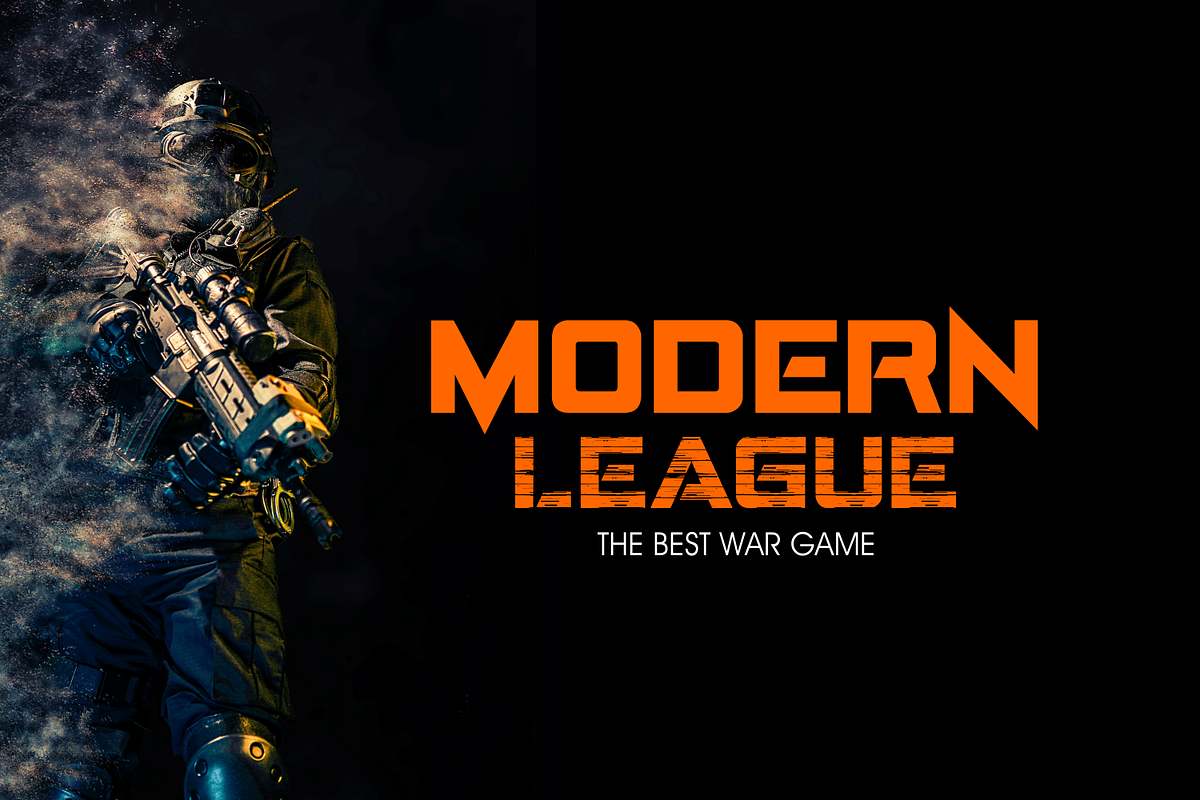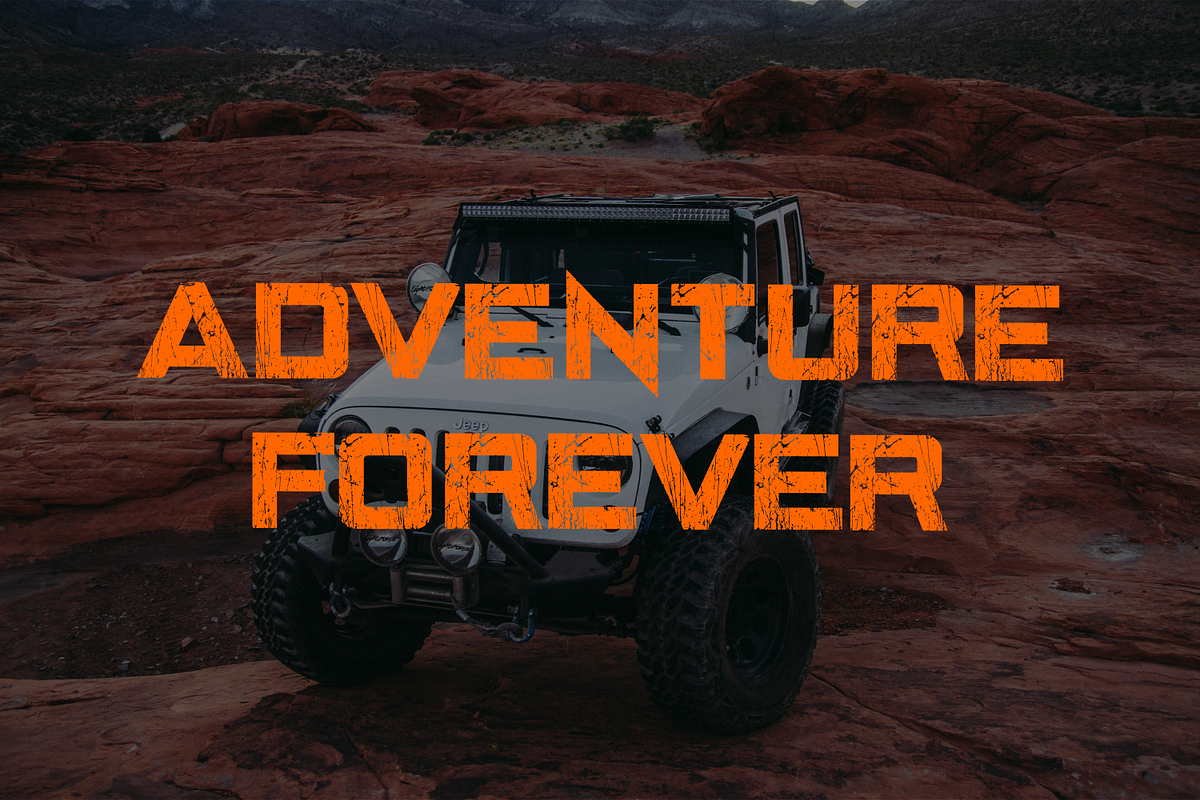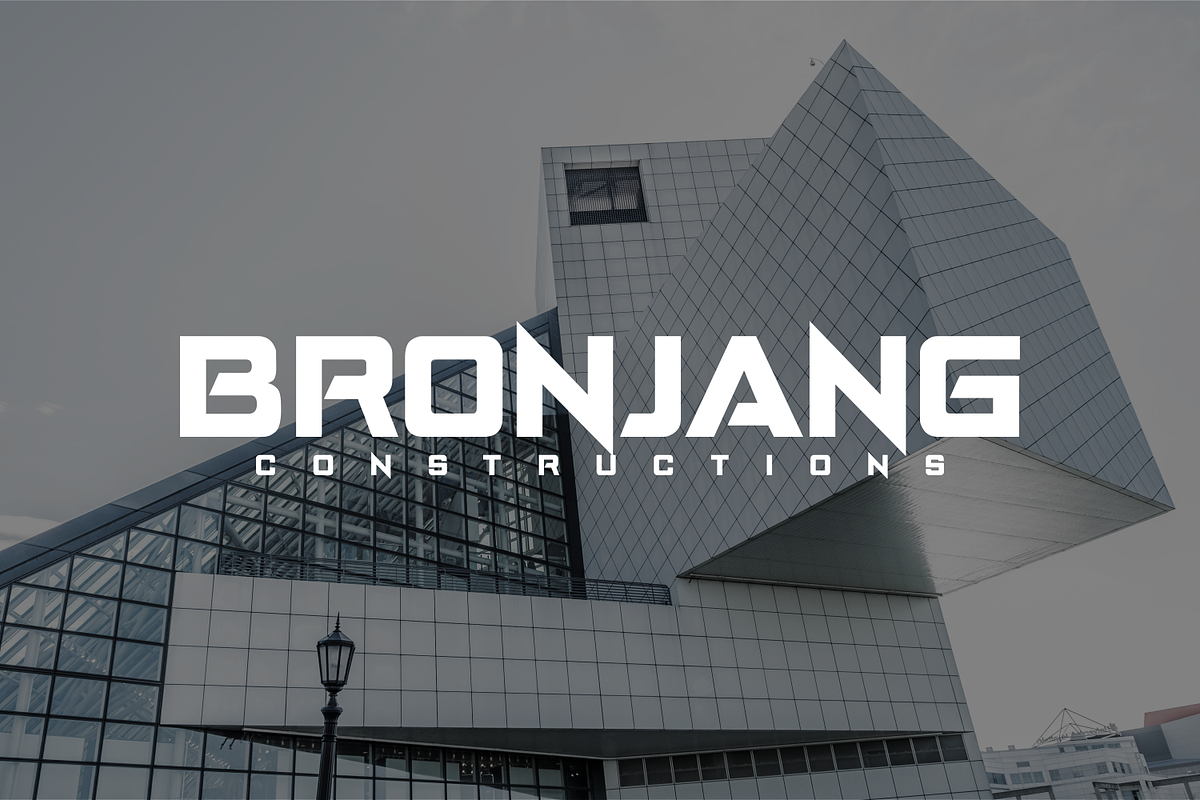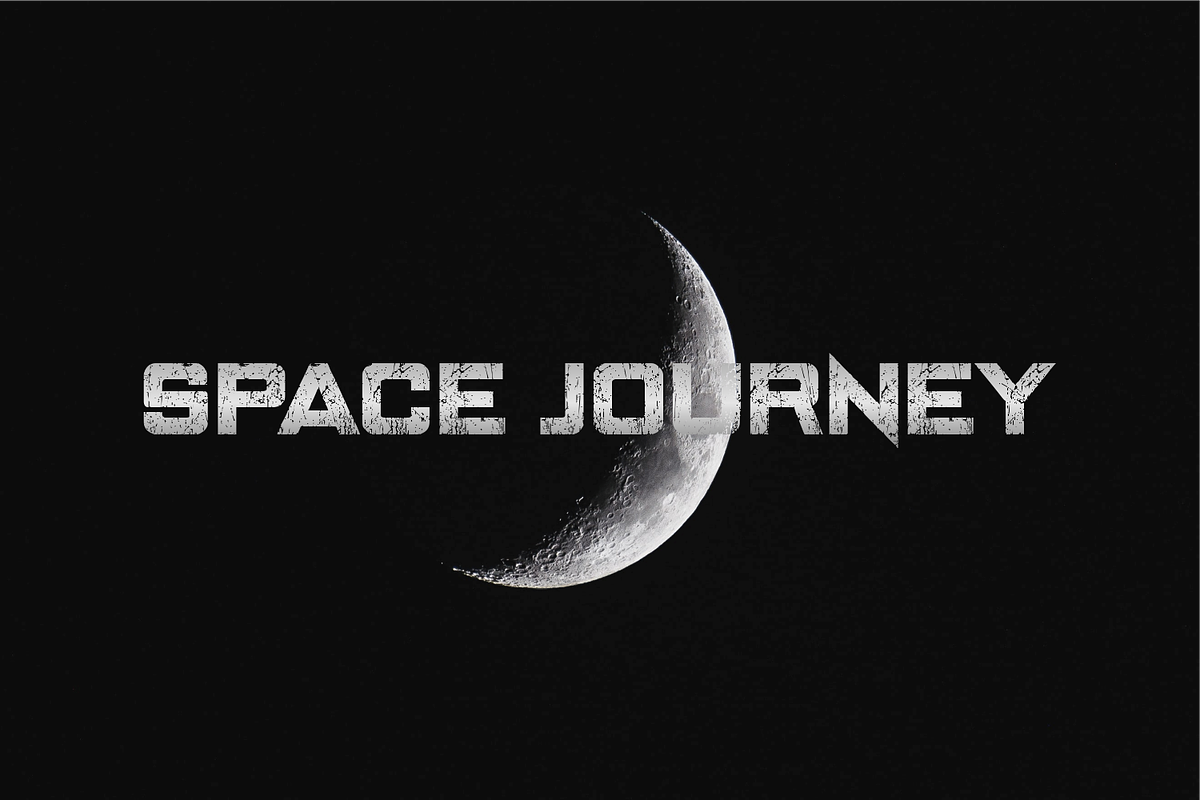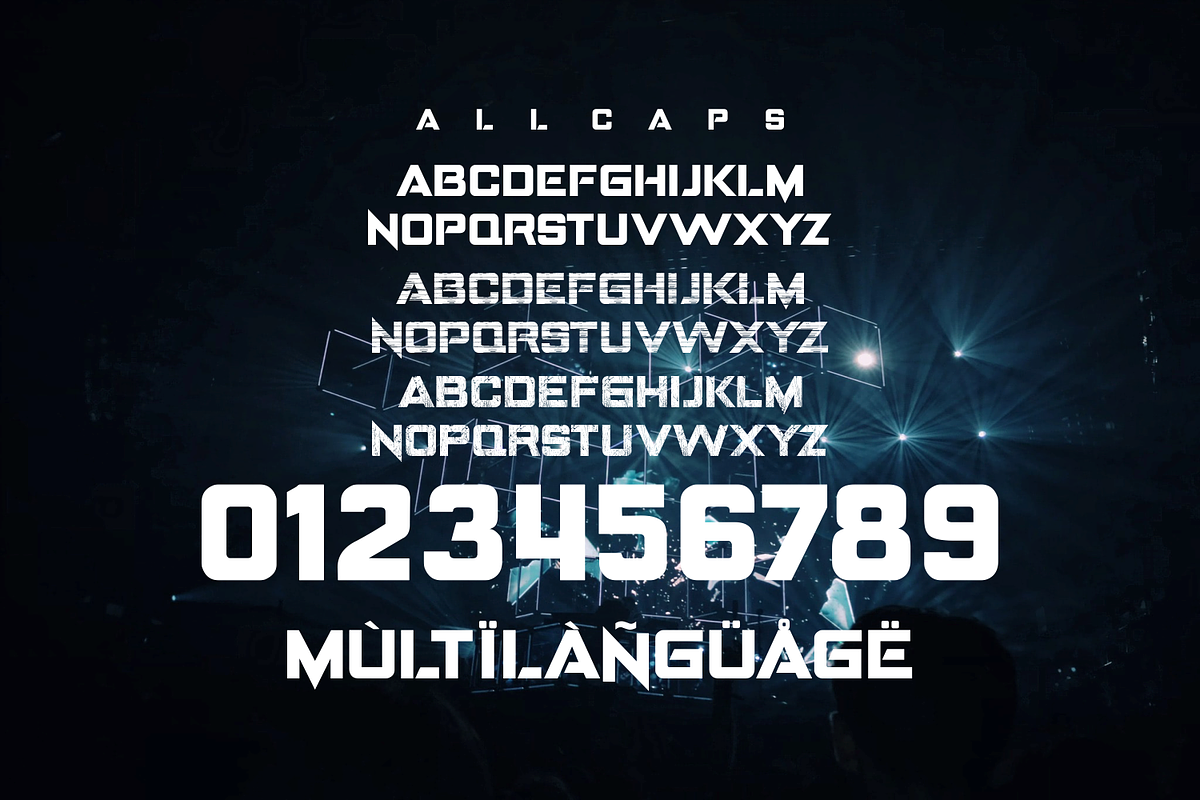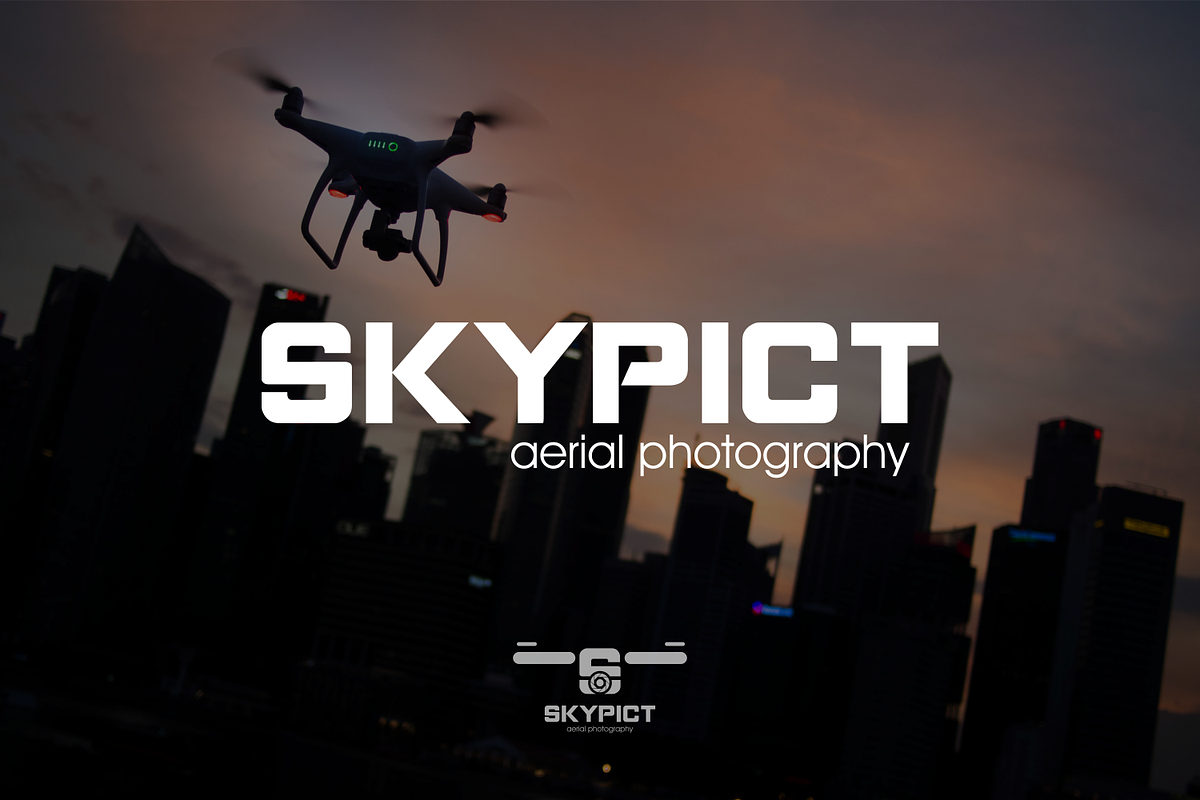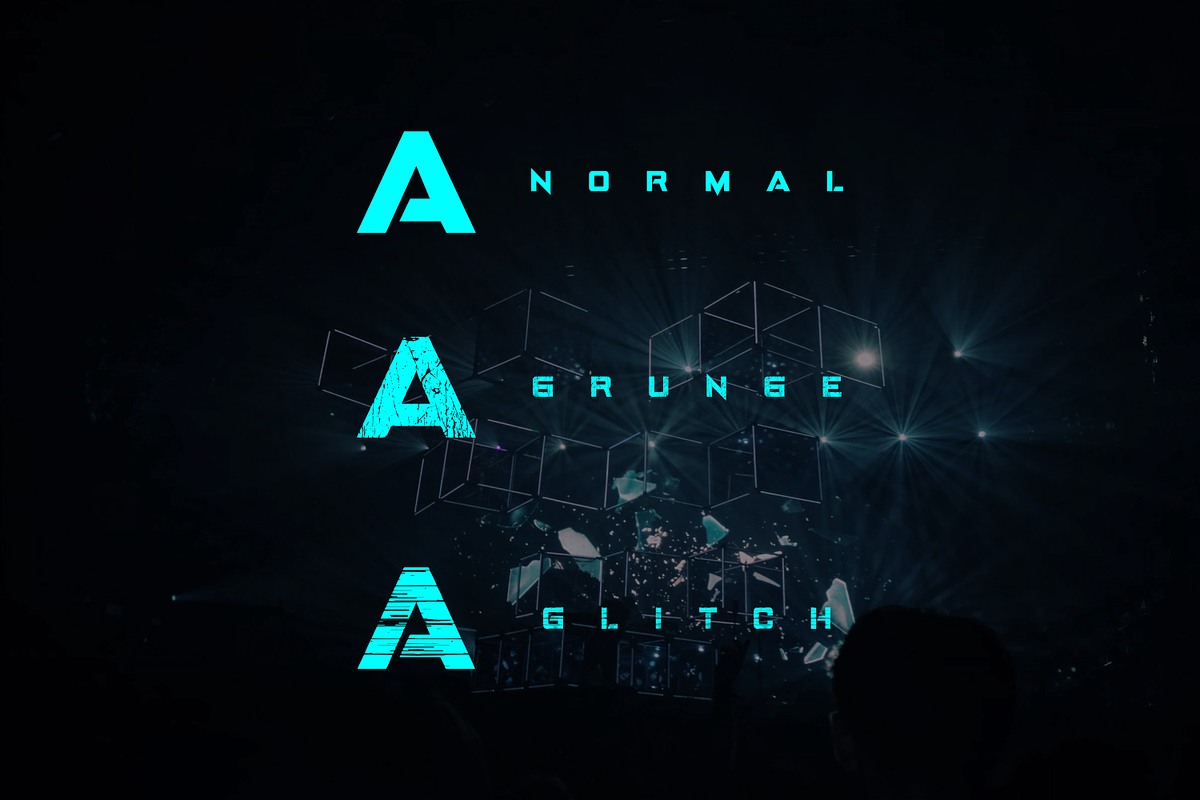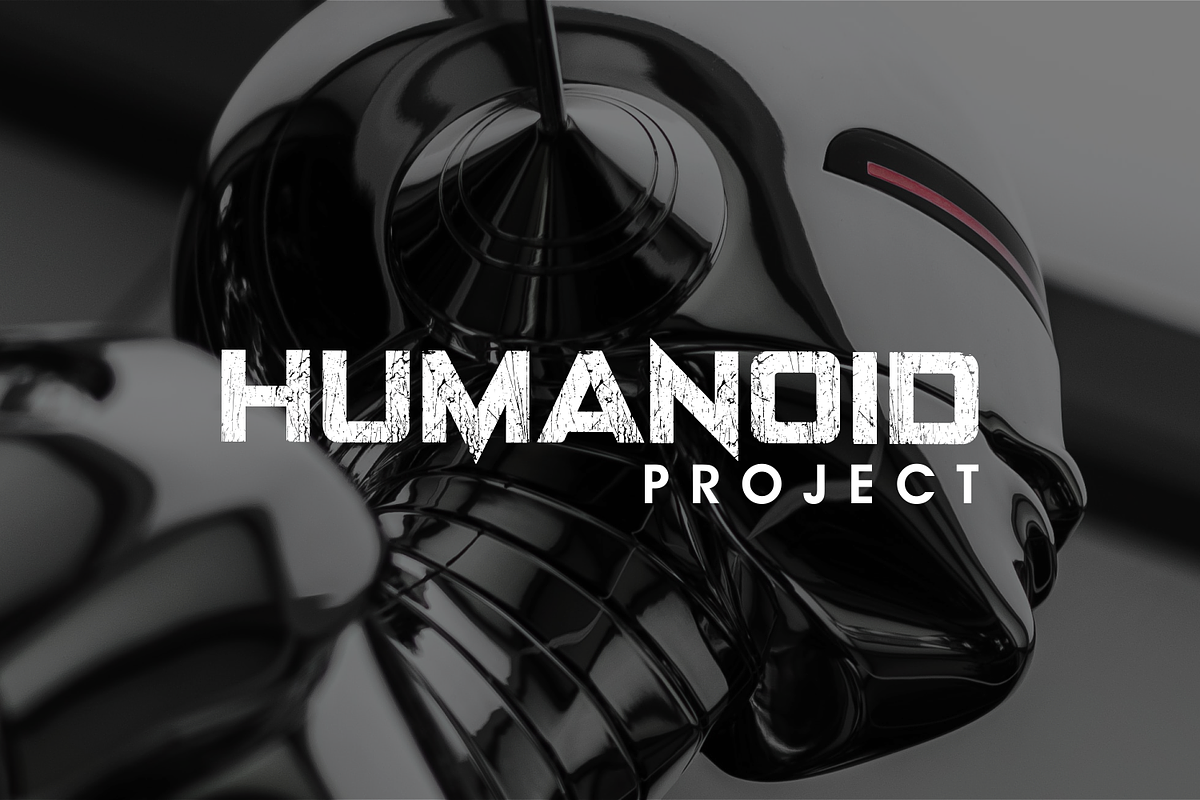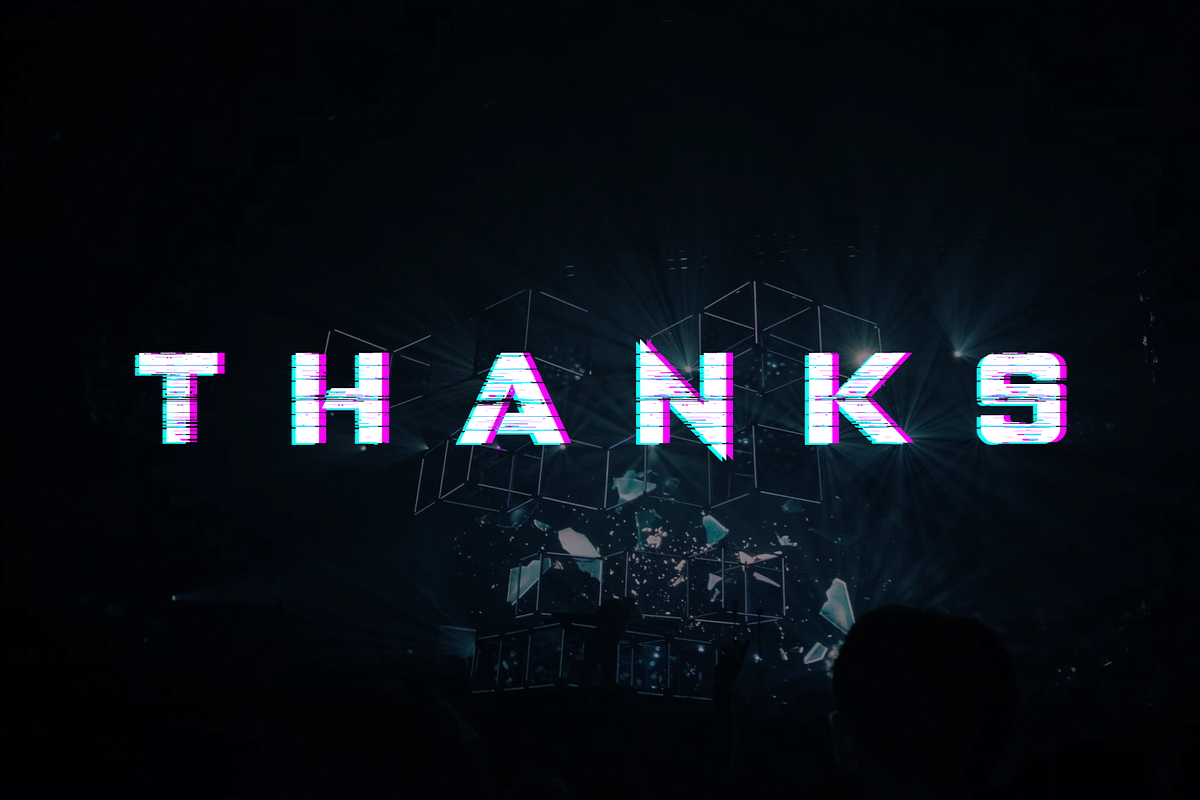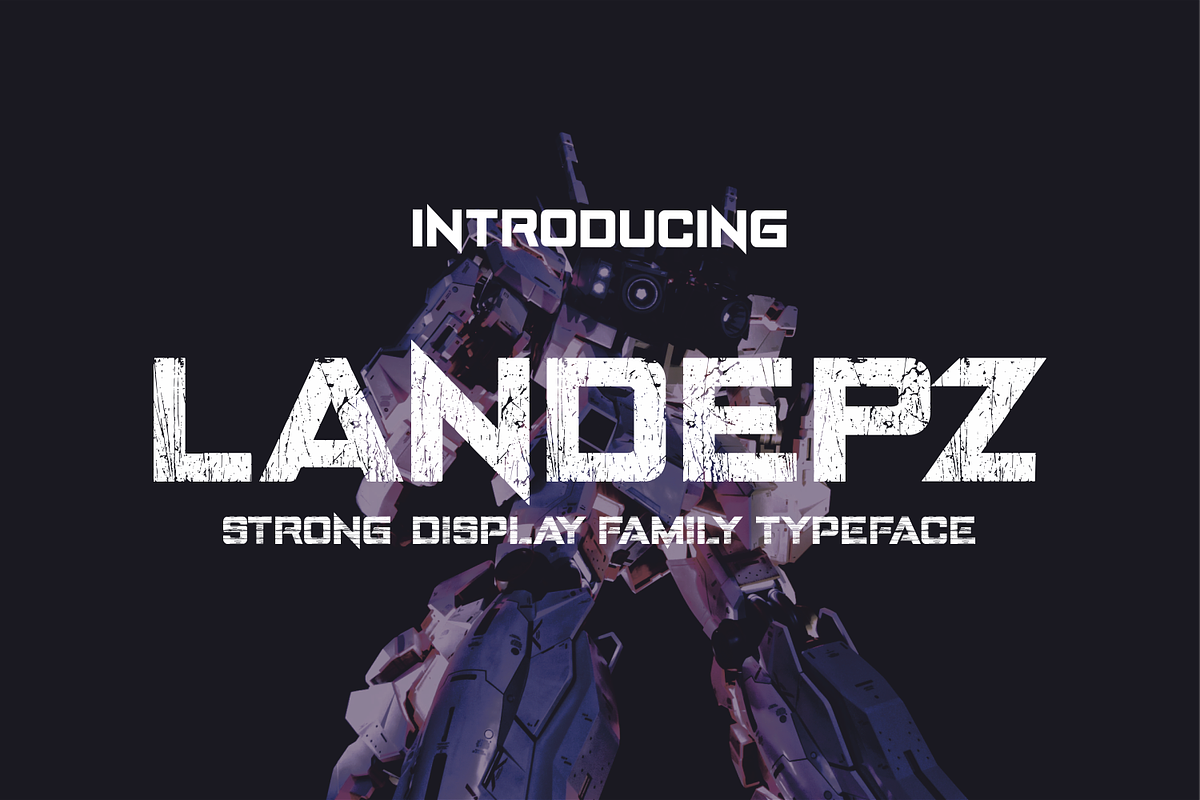
LANDEPZ strong display
Landepz Typefamily includes three normal styles, grunge texture and glitch, Landepz is a family of bold hand-printed types, celebrating the style of the original printing press and all its beautyful imperfections. Its solid, robust shape lends itself to a robust design, while its texture provides an authentic sound.